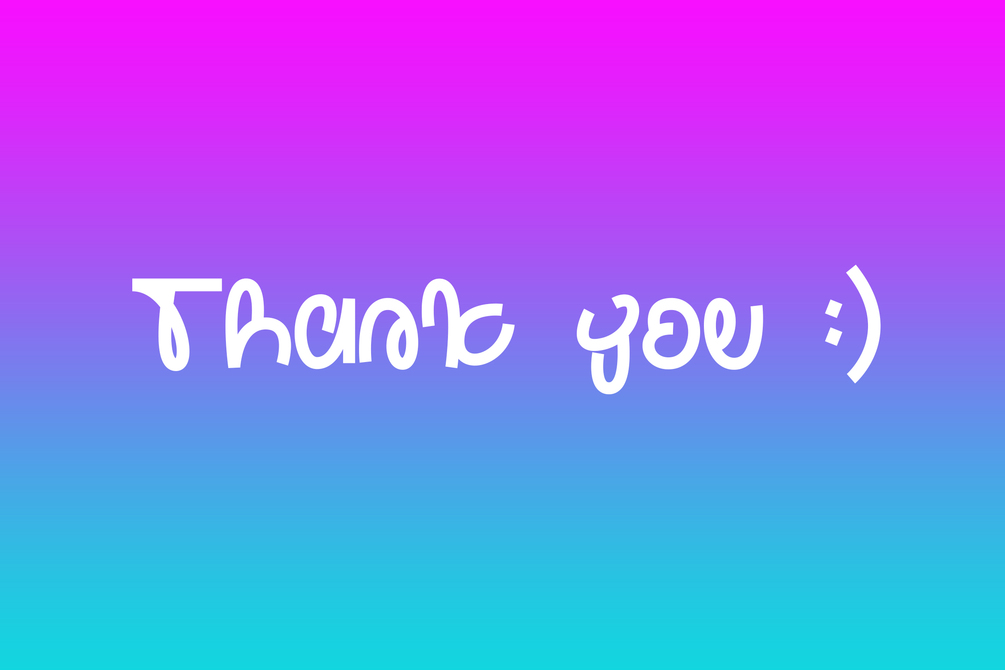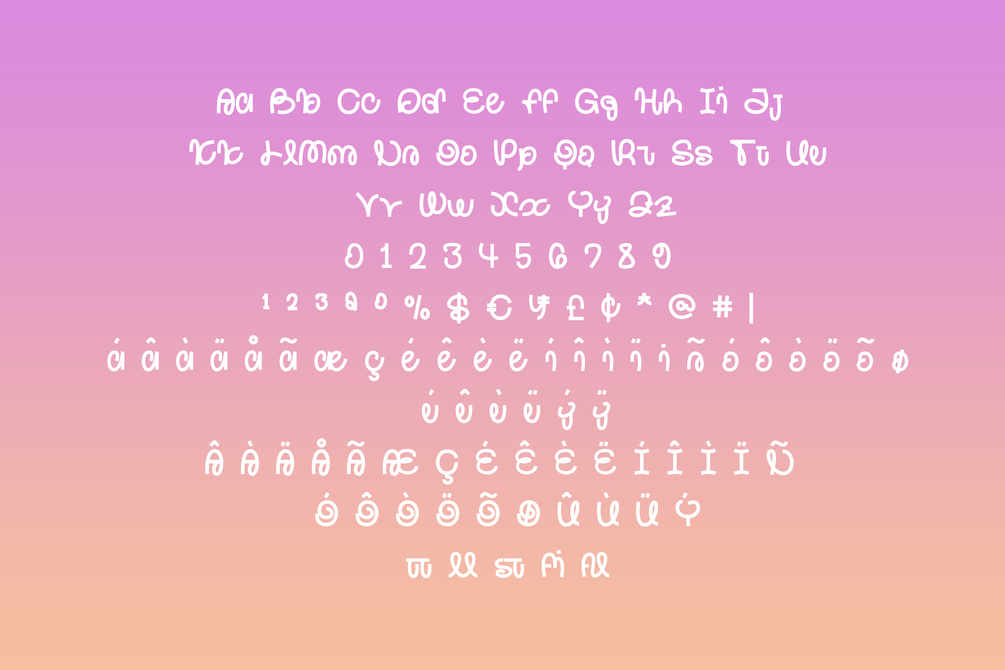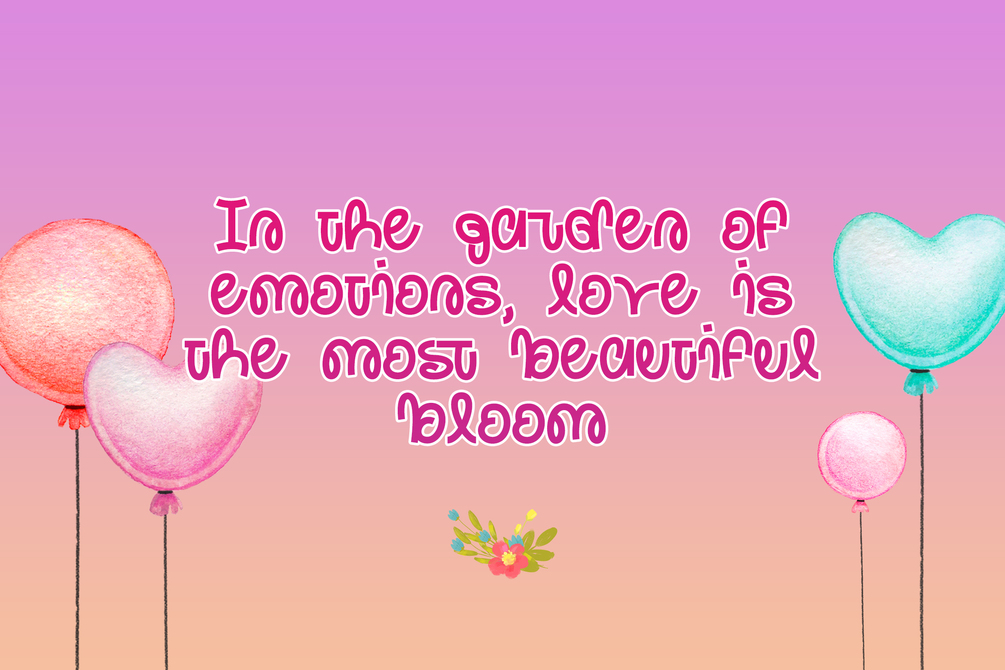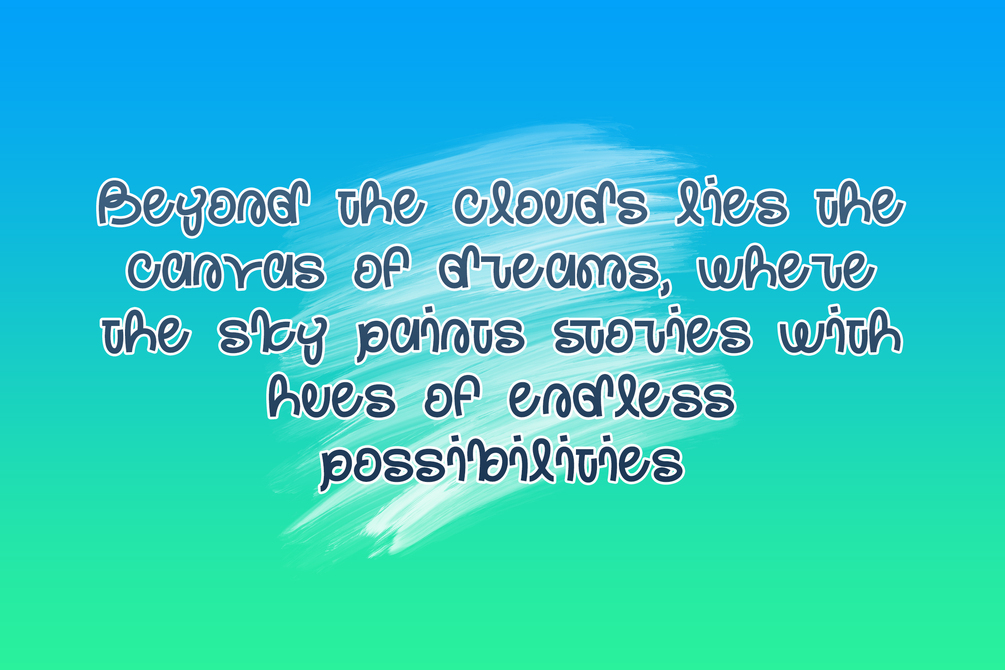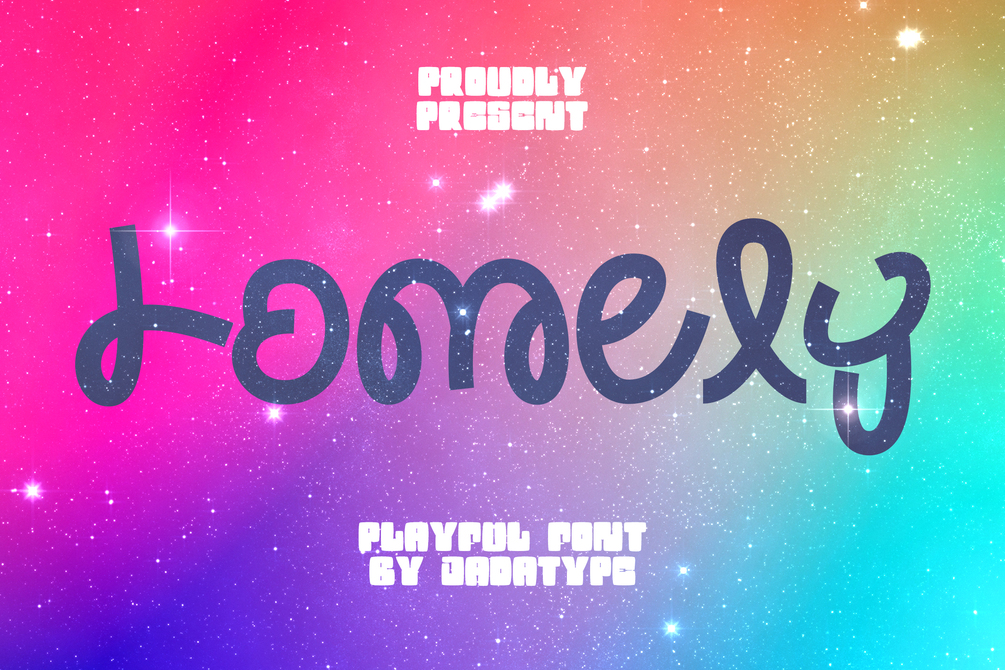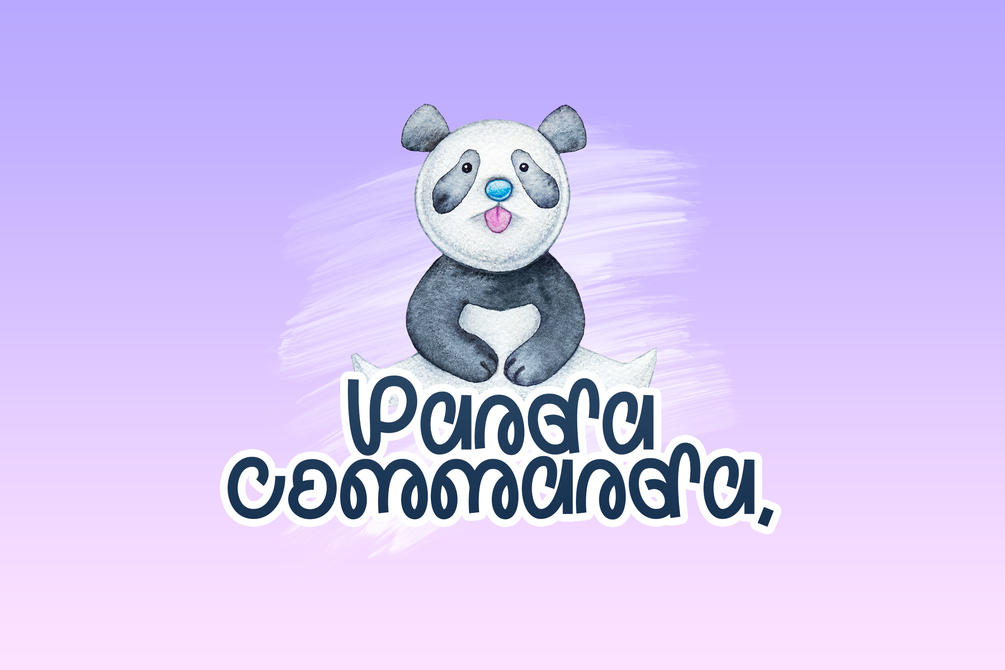
Lomely Font
Lomely is a display font that comes with a playful style. suitable for tshirt, branding, social media, and so on. contains standard English letters, numbers, punctuation, and several accents that support multilingualism.